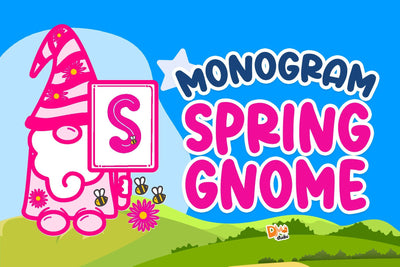
Monogram Spring Gnome
Introducing, our new product : Monogram Spring Gnome
Cute and adorable gnome monogram font with spring theme, great to celebrate your flowery days!
- All in caps
- Numeric
- Keyboard symbols ( empty )